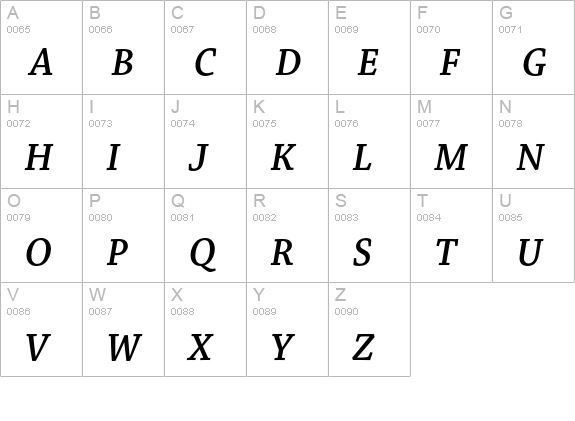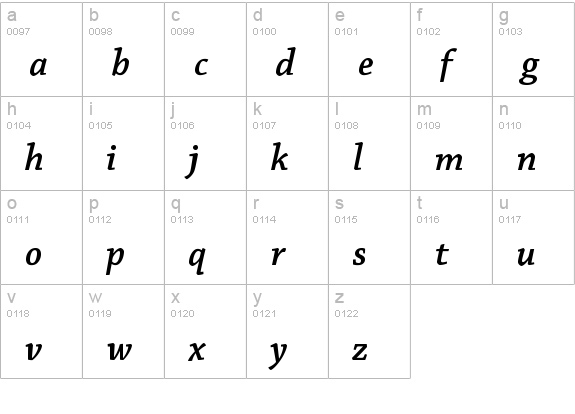
Chaparral Pro Semibold Italic Subhead is a sub-bold, structured, italic variant in the Chaparral typeface family \xE2\x80\x94 well suited to sub-headlines and emphasised passages.
The Chaparral Pro Semibold Italic Subhead font exudes a sense of sophistication and modernity with its bold yet elegant design. Ideal for use in subheadings, this font adds a touch of flair and professionalism to any project. Its slanted italic style conveys a sense of movement and dynamism, making it perfect for capturing attention and creating a lasting impression. Best of all, this high-quality font is available for free download at FontsMarket.com. Whether you're working on a print design project, a digital campaign, or any other creative endeavor, the Chaparral Pro Semibold Italic Subhead font is sure to elevate your work to the next level. Don't miss out on this opportunity to enhance your designs with this beautiful and versatile typeface.